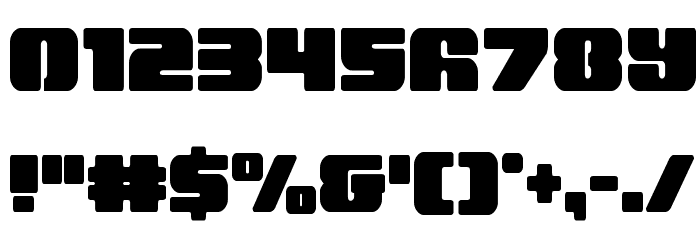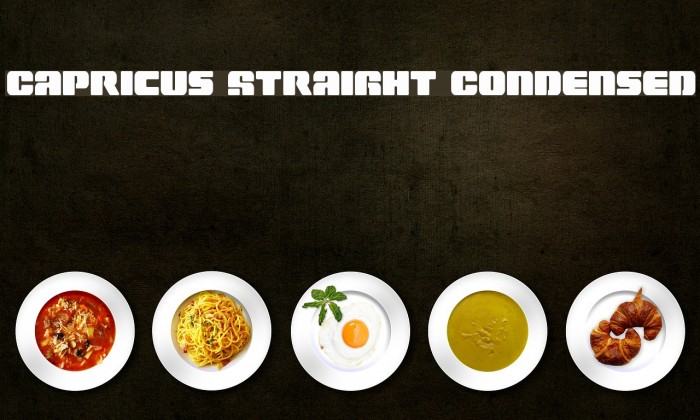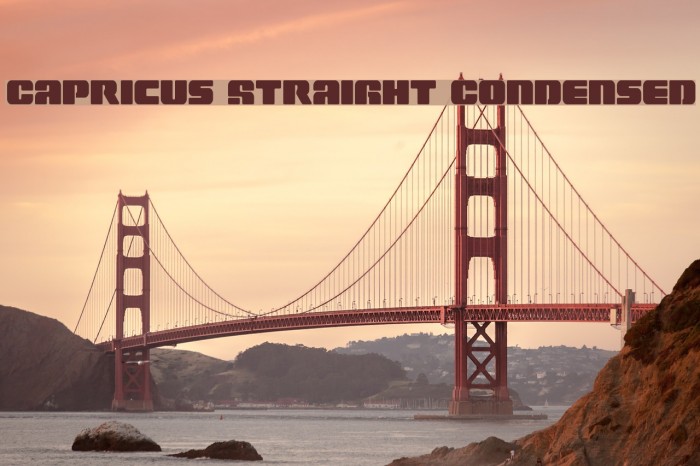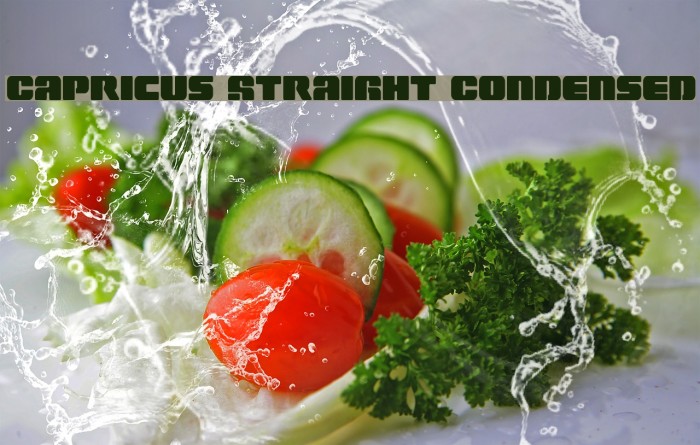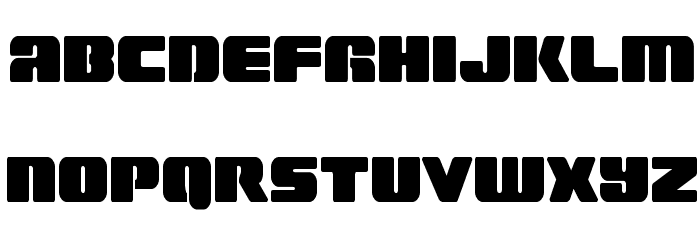
Capricus Straight Condensed Font
Capricus Straight Condensed Description
This font features a bold and condensed style with a modern, geometric design. The characters are blocky and robust, with a uniform thickness that gives them a strong presence. The uppercase and lowercase letters maintain a consistent height, contributing to a cohesive look. The numbers and special characters are designed to match the boldness of the alphabet, ensuring a harmonious appearance across all text. The font's straight lines and sharp angles create a futuristic and industrial feel, making it suitable for impactful designs.
A bold, condensed font with a modern, geometric style from Uncategorized fonts.
- Proposed Projects: Ideal for branding, posters, headlines, and any project requiring a strong, modern aesthetic.